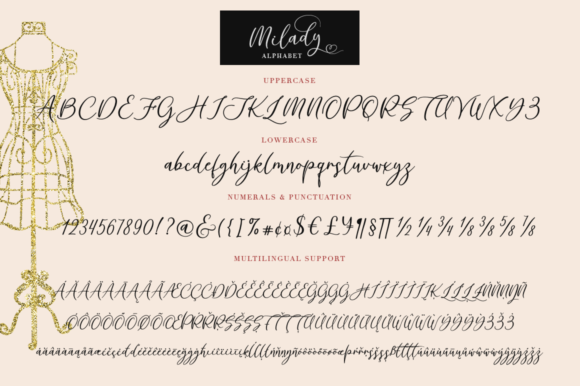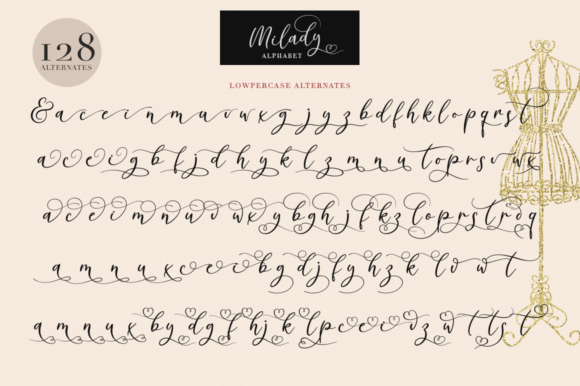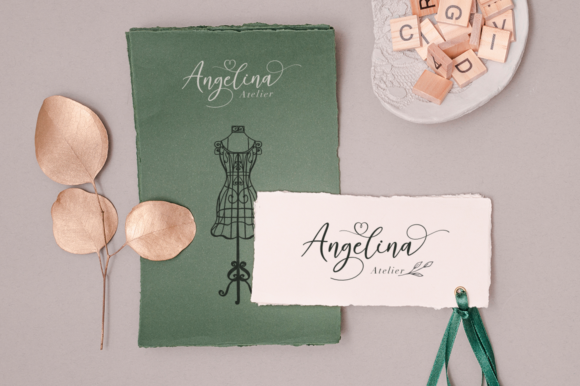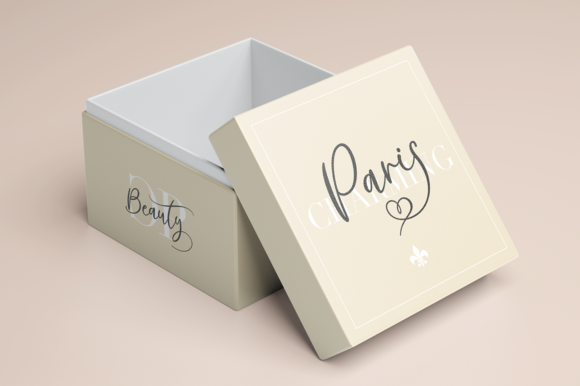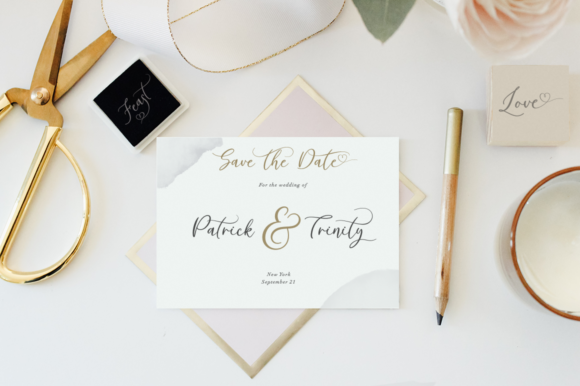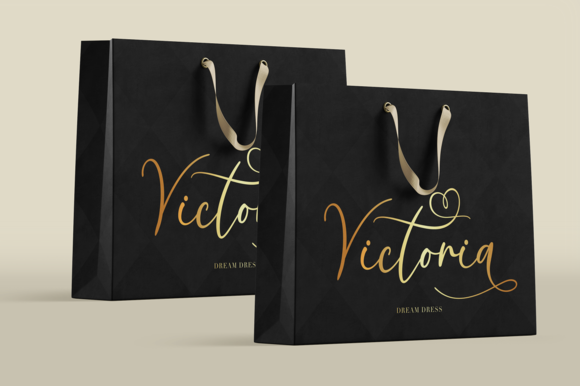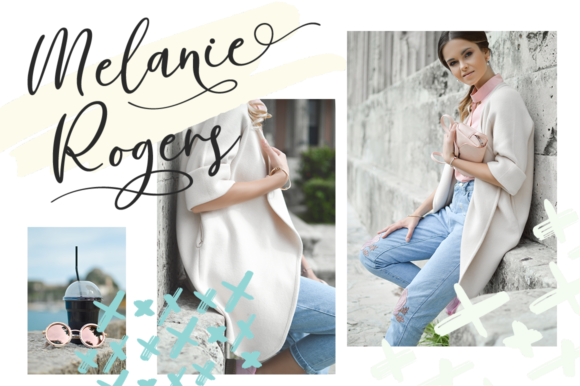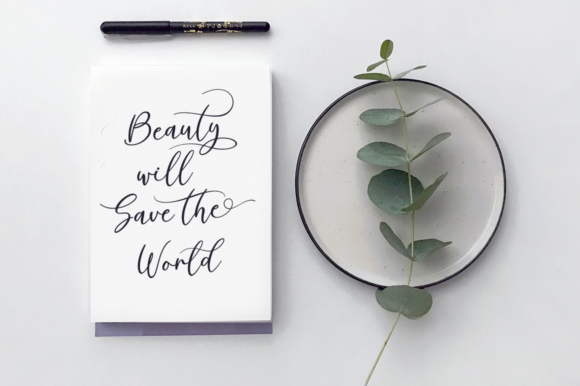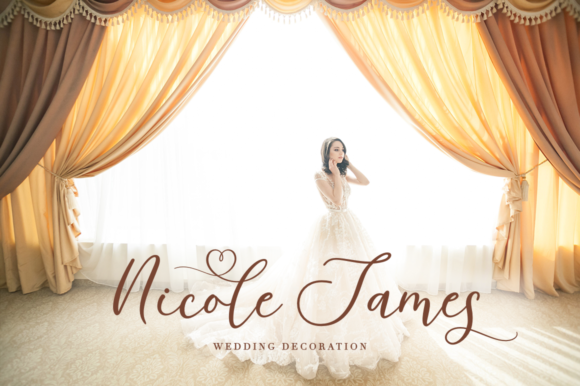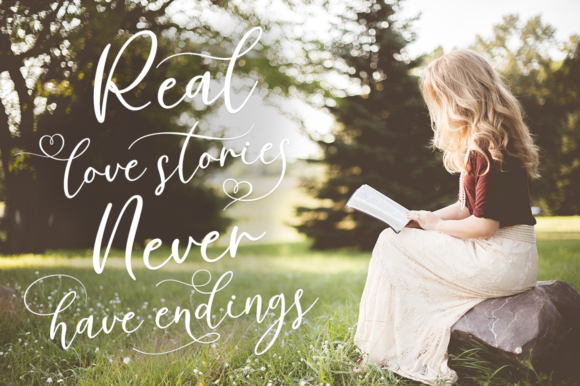
Milady Font
About Milady Font
Milady is a lovely script font inspired by romance, love, and modern calligraphy. Use it for any design project that requires a personalized appearance!